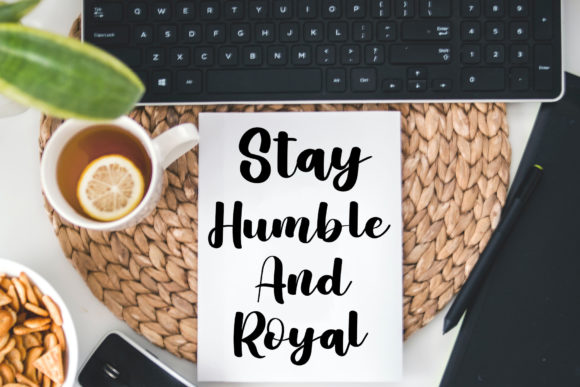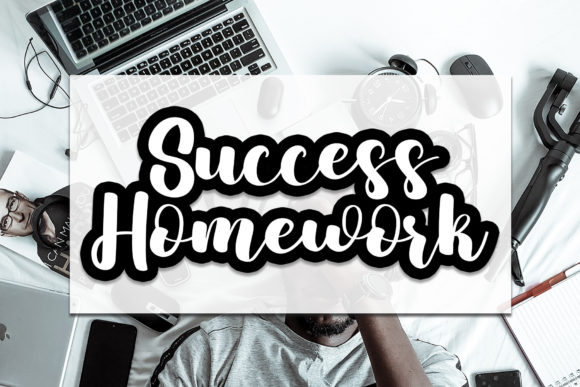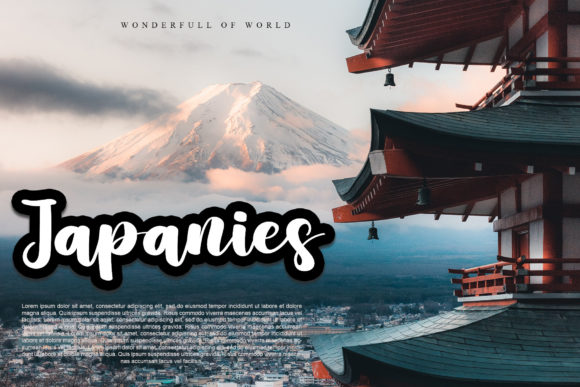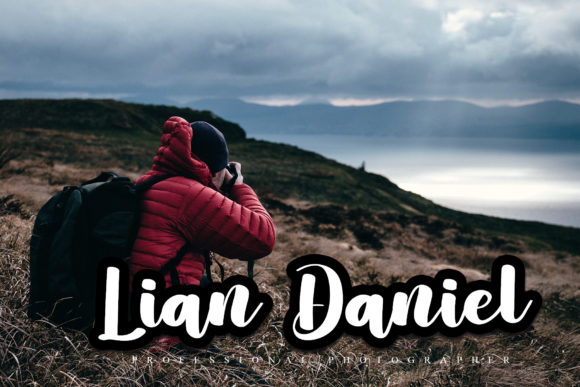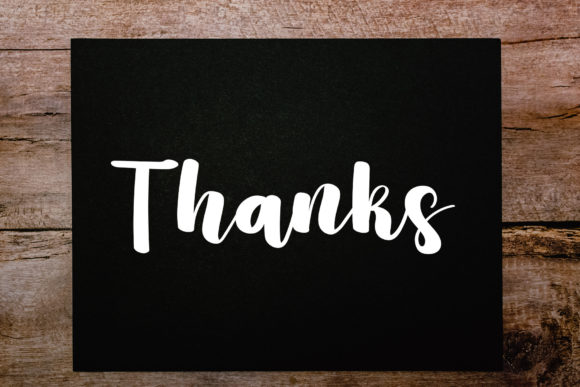
Introducing Farmhouse Goodness Font: Elevate Your Designs with Rustic Charm
Are you a designer or crafter looking for a font that adds a touch of warmth and coziness to your projects? Look no further than Farmhouse Goodness Font! This stunning script font is perfect for creating beautiful designs that evoke a sense of rustic charm and elegance. In this article, we’ll dive into the features and benefits of Farmhouse Goodness Font, and explore how it can elevate your design projects.
A Gorgeous Script Font
Farmhouse Goodness Font is a gorgeous script font that boasts a unique and elegant style. Its flowing curves and lines are reminiscent of traditional farmhouse signs, making it perfect for designs that require a touch of rustic charm. Whether you’re creating a logo, branding materials, or craft projects, this font is sure to add a lovely spark to your designs.
One of the standout features of Farmhouse Goodness Font is its PUA (Private Use Area) encoding. This means that you can access all of the amazing glyphs and ligatures with ease, giving you complete creative control over your designs. With PUA encoding, you can easily insert special characters, swashes, and other unique elements that will take your designs to the next level.
Farmhouse Goodness Font is perfect for designers and crafters who want to add a touch of rustic charm to their projects. Whether you’re creating:
- Craft projects, such as signs, cards, and scrapbooking
- Digital products, such as printable art and planners
- Web graphics, such as social media graphics and blog headers
This font is sure to become a staple in your design toolkit. Its versatility and elegance make it suitable for a wide range of projects, from rustic and country-themed designs to more modern and elegant creations.
Key Features of Farmhouse Goodness Font
- Gorgeous script font with a rustic charm
- Perfect for designers and crafters
- Suitable for a wide range of projects, from rustic to modern designs
- Easily accessible and editable in most design software
Tips for Using Farmhouse Goodness Font
Here are a few tips for getting the most out of Farmhouse Goodness Font:
- Experiment with different font sizes and colors to add depth and interest to your designs
- Pair Farmhouse Goodness Font with other fonts to create a unique and eye-catching combination
- Use the glyphs and ligatures to add special touches to your designs
- Don’t be afraid to get creative and try new things – Farmhouse Goodness Font is versatile and forgiving!
Farmhouse Goodness Font is a stunning script font that is sure to elevate your design projects. With its gorgeous rustic charm, PUA encoding, and versatility, it’s perfect for designers and crafters who want to add a touch of elegance and whimsy to their creations. Whether you’re creating logos, craft projects, or digital products, Farmhouse Goodness Font is a must-have font that will become a staple in your design toolkit.